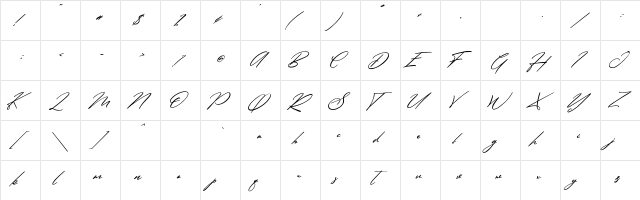
Simanice Demo Regular
| Foundry | Good Java Studio |
| Designer | Good Java Studio |
Design Context for Simanice Demo Typeface
Simanice Demo is a composed and adaptable typeface that performs quietly and consistently across a wide range of design contexts.